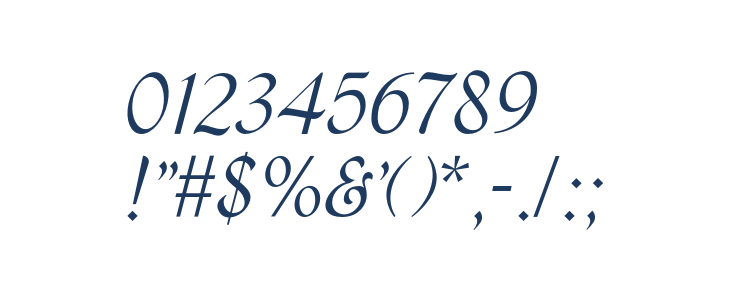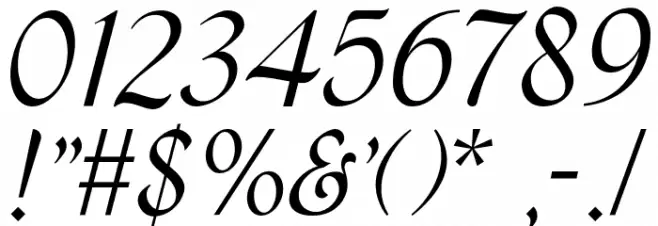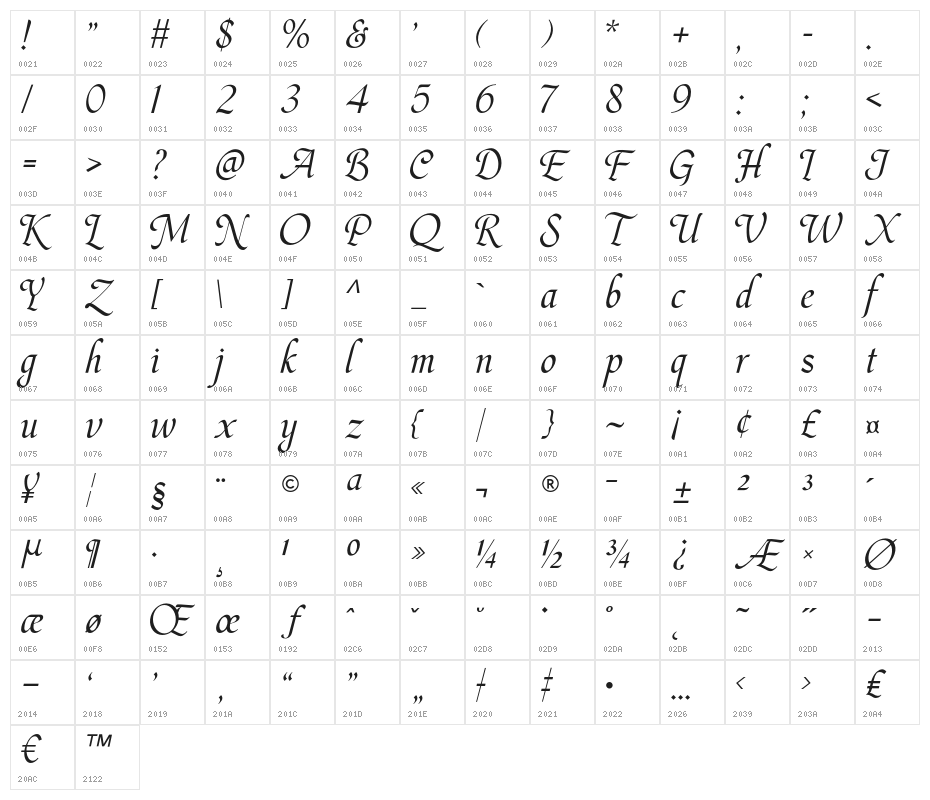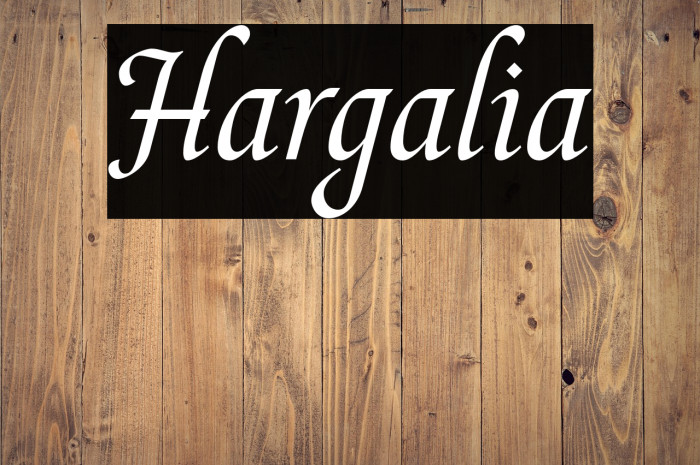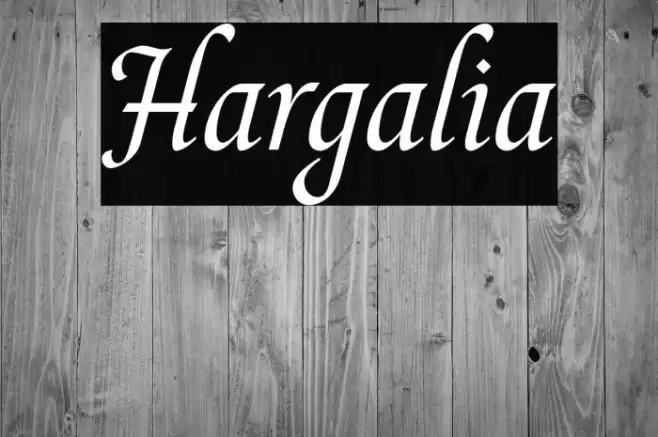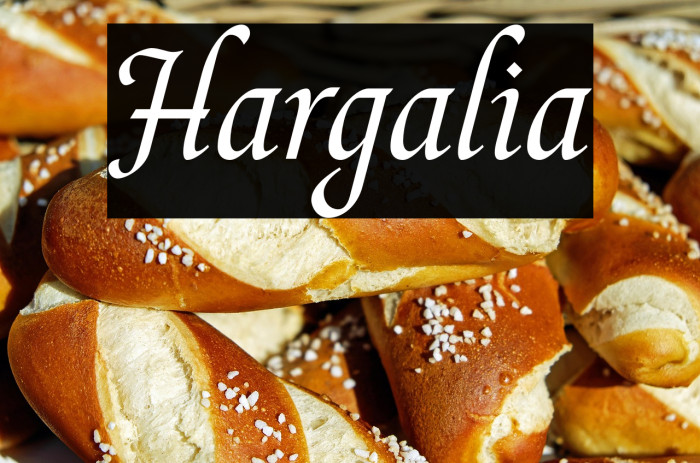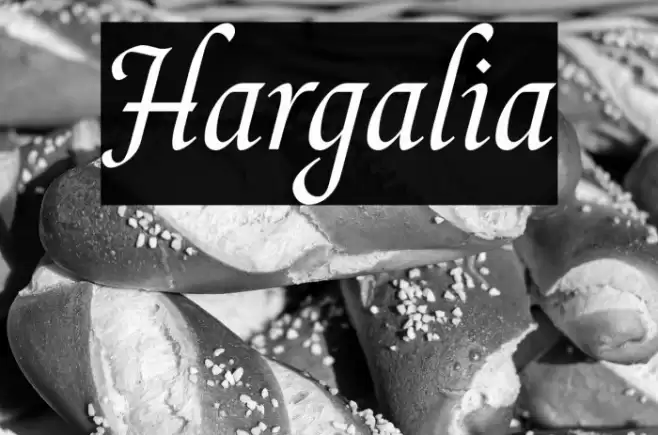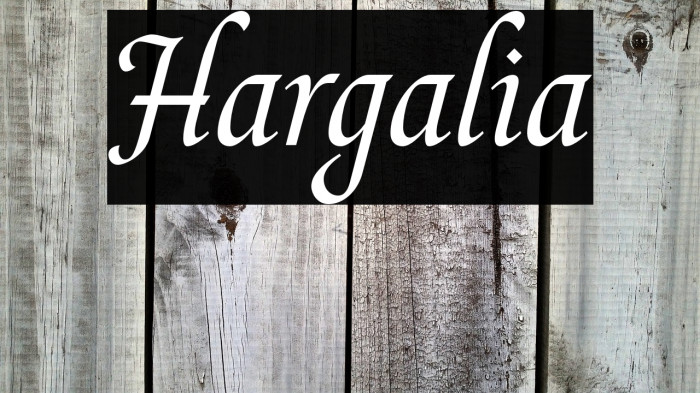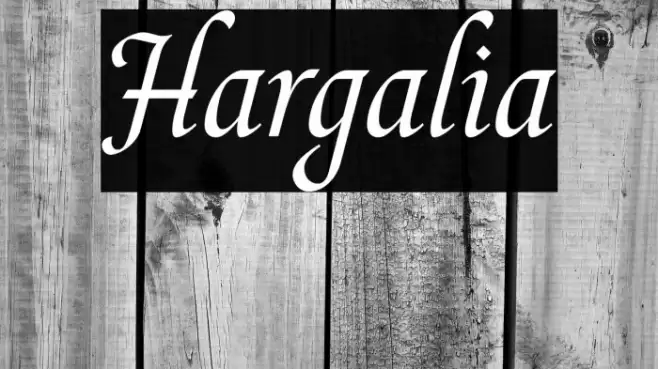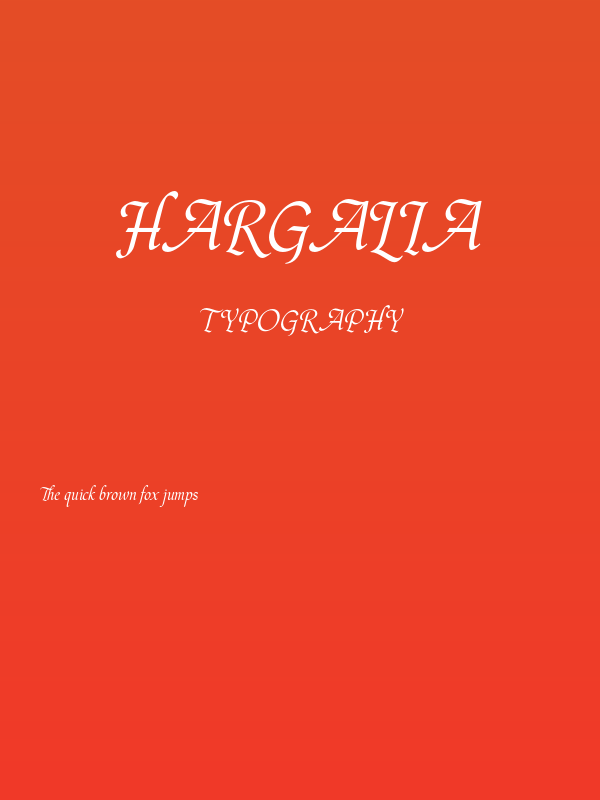
Hargalia Font
Hargalia Description
This font features a classic and elegant script style with a flowing, cursive design. The uppercase letters are characterized by their graceful curves and sweeping lines, while the lowercase letters maintain a consistent and harmonious flow. The numerals are distinct and easy to read, complementing the overall aesthetic. Special characters are designed with the same attention to detail, ensuring they blend seamlessly with the rest of the typeface. The font's style evokes a sense of sophistication and timelessness, making it suitable for a variety of formal and decorative applications.
| Use Case | Logos, Invitations, Decorative Text |
| Proposed Projects | Ideal for wedding invitations, elegant branding, formal event programs, and decorative signage. |